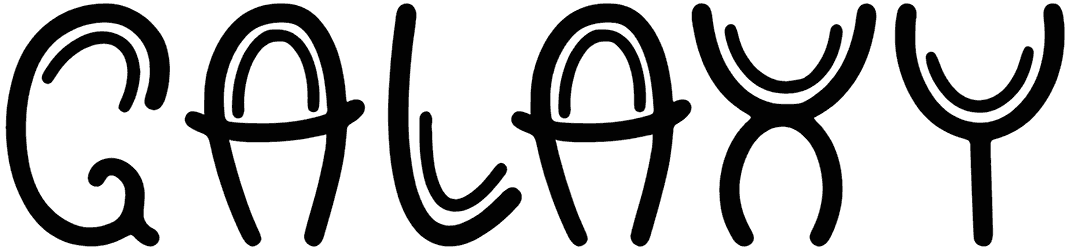
Galaxy Font
This cartoon font, Galaxy, can help you make some fantastic designs. This charming cartoonish font is adaptable for use in content aimed at children, such as advertisements, novels, toy packaging, apparel, etc., due to its humorous and rounded letters that are visually pleasing.